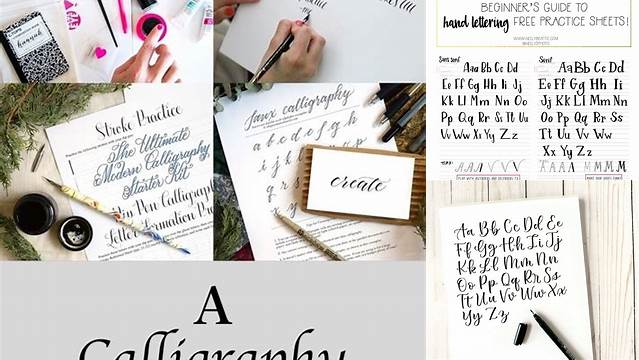
Easy Calligraphy Fonts A-Z: Beginner's Guide
Calligraphy, the art of beautiful writing, might seem daunting at first, but trust me, guys, it's totally achievable, especially with the right approach. This guide is designed to walk you through easy calligraphy fonts from A to Z, perfect for beginners. We'll break down the basics, explore different styles, and give you the confidence to start creating stunning lettering yourself. So, grab your pens, and let's dive in!
1. Calligraphy Basics for Newbies
Before we jump into specific fonts, let's cover the fundamental calligraphy basics you need to know. Calligraphy isn't just about pretty letters; it's about understanding the strokes, pressure, and spacing that make each character unique. The key is mastering the thin upstrokes and thick downstrokes that give calligraphy its signature look. You'll need to practice these basic strokes repeatedly to develop muscle memory and control. Think of it like learning to play an instrument – you wouldn't expect to play a symphony on your first try, right? Start with simple drills, focusing on consistent pressure and smooth transitions. We’ll also touch upon essential tools like calligraphy pens, paper types, and inks, ensuring you have everything you need to get started on the right foot. So, don't be intimidated; everyone starts somewhere, and with a little patience, you'll be amazed at what you can create.
2. Essential Calligraphy Tools for Beginners
To embark on your calligraphy journey, you'll need the right tools. While fancy supplies can be tempting, let’s focus on the essentials for beginners. A good starting point is a brush pen, such as the Tombow Dual Brush Pen or the Pentel Fude Touch Sign Pen. These are relatively inexpensive and provide the variation in line width crucial for calligraphy. Don’t underestimate the importance of paper either! Regular printer paper isn't ideal as it can cause your ink to bleed. Look for smooth paper designed for calligraphy or marker use. Inks are another consideration. India ink is a popular choice for its rich black color and permanence, but there are many other options available, including colored inks and shimmering varieties. Remember, the right tools can make a huge difference in your experience, so invest wisely in quality basics before expanding your collection. It's like having the right ingredients for a delicious meal – you can't bake a cake without flour, right?
3. Mastering Basic Calligraphy Strokes
The foundation of beautiful calligraphy lies in mastering a few basic strokes. These strokes are the building blocks for all the letters, so dedicate time to practicing them. The most crucial are the upstroke, a thin line created by light pressure, and the downstroke, a thick line achieved with more pressure. Other essential strokes include oval shapes, compound curves, and ascending and descending loops. Practicing these repeatedly will help you develop the muscle memory needed for consistent lettering. Think of it like learning scales on a piano – they might seem repetitive, but they're essential for playing more complex pieces. You can find numerous stroke practice sheets online or create your own by breaking down letters into their component strokes. Remember, consistency is key, so focus on achieving even lines and smooth transitions. Trust me, guys, the time you invest in these basics will pay off big time when you start writing full words and phrases.
4. Understanding Calligraphy Letter Forms
Once you've got the basic strokes down, it's time to understand calligraphy letter forms. Each letter in a calligraphy alphabet is constructed from those basic strokes, but the specific combination and proportions create its unique shape. Spend time studying exemplars, which are visual examples of the alphabet in different calligraphy styles. Pay close attention to the spacing between letters and the overall consistency of the letterforms. Ascenders (the parts of letters that extend above the x-height, like in “b” or “h”) and descenders (the parts that extend below the baseline, like in “g” or “p”) are crucial elements that contribute to the visual appeal of calligraphy. Understanding how these elements work together will help you create balanced and harmonious lettering. Think of each letter as a tiny work of art, and the more you study its form, the better you'll be at recreating it. It's like learning a new dance – you need to understand the steps before you can move gracefully.
5. Easy Calligraphy Alphabet: A to Z for Beginners
Now, let's dive into the easy calligraphy alphabet from A to Z! We'll focus on a simple, beginner-friendly style that emphasizes readability and elegance. For each letter, we’ll break down the strokes needed and provide visual examples. Start by practicing each letter individually, paying attention to the pressure you apply and the spacing between strokes. Don't rush the process; take your time and focus on accuracy. Once you're comfortable with individual letters, try connecting them to form simple words. Remember, consistency is key, so strive for uniformity in your letter heights, widths, and spacing. Think of it like building with LEGOs – each letter is a brick, and you need to connect them securely to create a stable structure. We’ll also provide tips on common mistakes and how to avoid them, ensuring you develop good habits from the start.
6. Simple Calligraphy Fonts to Learn First
When starting your calligraphy journey, choosing the right font can make a big difference. Some fonts are more complex and require advanced skills, while others are simple calligraphy fonts that are perfect for beginners. A great starting point is a basic monoline script, where the line width remains consistent throughout the letter. This simplifies the process and allows you to focus on letterforms and spacing without worrying about pressure variations. Another excellent option is a faux calligraphy style, where you draw the thick downstrokes instead of creating them with pressure. This is a fantastic way to get a feel for calligraphy without needing specialized tools. We’ll introduce you to a few specific fonts that are known for their simplicity and elegance, making them ideal for beginners. Think of it like learning a new language – you'd start with basic vocabulary and grammar before tackling complex sentences, right?
7. Brush Pen Calligraphy for Beginners
Brush pen calligraphy is a popular choice for beginners due to the versatility and ease of use of brush pens. These pens have flexible tips that allow you to create thick and thin lines with varying pressure. This makes them perfect for achieving the signature calligraphy look without the need for a traditional pointed pen and ink. When using brush pens, it’s crucial to hold the pen at a consistent angle and apply even pressure. Start with light pressure for upstrokes and gradually increase the pressure for downstrokes. Practice transitioning smoothly between thick and thin lines to create elegant letterforms. We'll provide tips on choosing the right brush pen, holding it correctly, and practicing specific exercises to improve your technique. Think of a brush pen as your magic wand – with a little practice, you can create stunning calligraphy with it!
8. Faux Calligraphy: A Beginner-Friendly Alternative
If you're intimidated by the pressure control required for traditional calligraphy, faux calligraphy is your new best friend. This technique involves writing out the letters in a regular font and then going back and thickening the downstrokes manually. It's a fantastic way to get the look of calligraphy without needing specialized tools or advanced skills. To create faux calligraphy, simply write out your word or phrase in a basic print style. Then, identify the downstrokes in each letter and add a second line parallel to the original, creating a thicker line. You can then fill in the space between the lines for a bolder look. We’ll provide step-by-step instructions and visual examples to guide you through the process. Think of it like drawing a picture – you start with an outline and then add details and shading. Faux calligraphy is a fantastic way to practice letterforms and spacing before moving on to traditional calligraphy techniques.
9. Practicing Letter Connections in Calligraphy
Connecting letters smoothly is a key aspect of beautiful calligraphy. It’s not enough to just write each letter correctly; you need to ensure that they flow seamlessly into one another. This involves paying attention to the exit strokes of one letter and the entry strokes of the next. Practice connecting letters in pairs and small words to develop a feel for the rhythm and spacing. Some letters connect more easily than others, so identify the challenging combinations and focus your practice on those. Overlapping letters slightly can also create a more natural and flowing look. We’ll provide exercises and examples to help you master letter connections and create elegant calligraphy pieces. Think of it like handwriting – you naturally connect letters when you write quickly, and calligraphy is all about creating that same fluidity with intention.
10. Spacing and Alignment in Calligraphy
Spacing and alignment are crucial elements that contribute to the overall visual appeal of your calligraphy. Even if your letterforms are perfect, inconsistent spacing or misalignment can make your work look messy and unbalanced. Pay close attention to the space between letters, words, and lines. The goal is to create a harmonious balance where the spacing feels even and consistent. Use guidelines to ensure that your letters are aligned correctly and that your baseline is straight. Practice writing on grid paper or use a ruler to draw guidelines on your paper. We’ll provide tips on identifying and correcting spacing issues, as well as techniques for creating visually pleasing layouts. Think of it like interior design – you need to arrange the furniture in a room thoughtfully to create a balanced and harmonious space, and calligraphy is no different.
11. Calligraphy Drills for Skill Improvement
Consistent practice is the key to improving your calligraphy skills, and calligraphy drills are a fantastic way to build muscle memory and refine your technique. These drills focus on repetitive strokes and letterforms, helping you develop consistency and control. Start with basic stroke drills, such as upstrokes, downstrokes, and ovals. Then, move on to practicing individual letters and letter combinations. Aim to spend at least 15-20 minutes each day on drills to see noticeable improvement. We’ll provide a variety of drill exercises to keep your practice engaging and effective. Think of it like a workout routine – you need to consistently exercise specific muscles to build strength and endurance, and calligraphy drills are the equivalent for your hand and wrist.
12. Common Calligraphy Mistakes and How to Avoid Them
Everyone makes mistakes when learning calligraphy, but identifying and correcting them is crucial for improvement. Some common calligraphy mistakes include inconsistent pressure, uneven spacing, misalignment, and incorrect letterforms. One of the best ways to identify mistakes is to analyze your work critically and compare it to exemplars. Pay attention to the areas where your lettering deviates from the ideal form and focus your practice on correcting those issues. Using guidelines and taking breaks when your hand gets tired can also help prevent mistakes. We’ll provide a detailed list of common mistakes and practical tips on how to avoid them. Think of it like learning a new skill – you’ll stumble along the way, but the key is to learn from your mistakes and keep practicing.
13. Calligraphy Projects for Beginners to Try
Putting your calligraphy skills to use on calligraphy projects is a great way to stay motivated and see your progress. Start with simple projects, such as writing quotes, creating greeting cards, or addressing envelopes. These projects allow you to practice your letterforms and spacing in a practical context. As you become more confident, you can move on to more complex projects, such as creating custom artwork or designing invitations. We’ll provide a range of project ideas and tips on how to execute them successfully. Think of it like cooking – you start with simple recipes and gradually work your way up to more elaborate dishes, and calligraphy projects are the perfect way to hone your skills and create something beautiful.
14. Adding Flourishes to Your Calligraphy
Flourishes are decorative strokes that add elegance and personality to your calligraphy. They can be added to the ascenders, descenders, or anywhere else in your lettering. However, it’s essential to use flourishes sparingly and thoughtfully, as too many can make your work look cluttered. Start with simple flourishes, such as loops and curves, and gradually experiment with more complex designs. Practice your flourishes separately from your letterforms to develop control and consistency. We’ll provide tips on creating balanced and visually appealing flourishes, as well as examples of different flourish styles. Think of it like adding jewelry to an outfit – the right flourishes can enhance your calligraphy, but too many can be overwhelming.
15. Exploring Different Calligraphy Styles
Calligraphy encompasses a wide range of styles, each with its unique characteristics and aesthetic. From elegant copperplate to modern brush lettering, there’s a style to suit every taste. As a beginner, it’s helpful to explore different styles to find the ones that resonate with you. Start by studying exemplars of various styles and practicing the basic letterforms. Experiment with different tools and techniques to see how they influence the final result. We’ll introduce you to a few popular calligraphy styles and provide resources for further exploration. Think of it like exploring different genres of music – you might start with pop, but you might discover a love for jazz or classical along the way, and the same goes for calligraphy styles.
16. Modern Calligraphy Techniques
Modern calligraphy is a more relaxed and contemporary approach to traditional calligraphy. It allows for greater freedom and creativity in letterforms and spacing. Modern calligraphy often incorporates elements from different styles, creating a unique and personalized look. One popular technique is bounce lettering, where the letters appear to bounce above and below the baseline. Another technique is adding variations in line thickness and pressure for a more dynamic effect. We’ll provide tips on incorporating modern techniques into your calligraphy and creating your own unique style. Think of it like fashion – modern trends often reinterpret classic styles, and modern calligraphy does the same for traditional lettering.
17. Calligraphy for Special Occasions
Calligraphy adds a touch of elegance and personalization to special occasions. From wedding invitations to birthday cards, calligraphy can elevate any event. When creating calligraphy for special occasions, consider the tone and style of the event. For formal occasions, a traditional script like copperplate may be appropriate, while for more casual events, a modern brush lettering style might be a better fit. Pay attention to the colors and materials you use to create a cohesive look. We’ll provide tips on designing calligraphy for different occasions and creating memorable pieces. Think of it like decorating for a party – you choose the decorations to create the right atmosphere, and calligraphy can do the same for your special event.
18. Calligraphy as a Hobby and Stress Reliever
Calligraphy is not only a beautiful art form but also a fantastic hobby and stress reliever. The focused concentration required for calligraphy can be a form of meditation, helping you to relax and unwind. The process of creating beautiful lettering can be incredibly satisfying, boosting your confidence and creativity. Setting aside time each day for calligraphy practice can be a great way to de-stress and improve your overall well-being. We’ll discuss the benefits of calligraphy as a hobby and provide tips on incorporating it into your daily routine. Think of it like yoga or meditation – it’s a practice that benefits both your mind and your body.
19. Where to Find Calligraphy Inspiration
Finding calligraphy inspiration is crucial for staying motivated and developing your own style. There are countless resources available, both online and offline. Social media platforms like Instagram and Pinterest are excellent sources of visual inspiration, where you can follow calligraphers and browse their work. Books, magazines, and calligraphy workshops are also great resources for learning new techniques and styles. Don’t be afraid to experiment and draw inspiration from a variety of sources. We’ll provide a list of resources and tips on finding inspiration that resonates with you. Think of it like exploring different art galleries – you might discover a new artist or style that inspires your own work, and the same goes for calligraphy.
20. Building a Calligraphy Community
Connecting with other calligraphers can enhance your learning experience and provide valuable support and encouragement. Joining a calligraphy community allows you to share your work, receive feedback, and learn from others. Online forums, social media groups, and local calligraphy guilds are all great ways to connect with fellow enthusiasts. Participating in challenges and collaborations can also be a fun way to improve your skills and build relationships. We’ll provide tips on finding and engaging with calligraphy communities. Think of it like joining a club or team – you share a common interest, support each other, and learn together.
21. The Importance of Patience in Calligraphy
Patience is a virtue, especially when it comes to learning calligraphy. It takes time and consistent practice to develop the skills and muscle memory needed for beautiful lettering. Don’t get discouraged if your first attempts aren’t perfect; everyone starts somewhere. Focus on the process and celebrate your progress, no matter how small. Set realistic goals and break down your learning into manageable steps. Remember, the journey is just as important as the destination. We’ll discuss the importance of patience in calligraphy and provide tips on staying motivated and persistent. Think of it like growing a garden – you need to nurture the plants and give them time to flourish, and the same goes for your calligraphy skills.
22. Calligraphy Paper Types for Different Inks
Choosing the right paper is essential for achieving optimal results in calligraphy. Different inks and pens perform best on specific paper types. Smooth paper is generally preferred for calligraphy as it allows the pen to glide easily without feathering or bleeding. Papers specifically designed for calligraphy or marker use are ideal, as they are often thicker and coated to prevent ink from spreading. For pointed pen calligraphy, smooth, non-absorbent paper is crucial, while brush pens may work well on slightly textured paper. We’ll provide a guide to different calligraphy paper types and their ideal uses. Think of it like choosing the right canvas for a painting – the paper is the foundation for your artwork, and selecting the right one can make a big difference in the final result.
23. Choosing the Right Calligraphy Ink
Choosing the right calligraphy ink is crucial for achieving the desired effect in your lettering. Different inks have different properties, such as viscosity, opacity, and permanence. India ink is a popular choice for its rich black color and archival qualities, making it suitable for important projects. Watercolor inks offer a wide range of colors and can be blended to create unique shades. Acrylic inks are waterproof and durable, making them ideal for projects that need to withstand the elements. Experimenting with different inks can help you discover your preferences and find the perfect ink for each project. We’ll provide a guide to different calligraphy inks and their characteristics. Think of it like choosing the right paint for a project – the ink is the color and substance of your calligraphy, and selecting the right one can enhance your work.
24. Calligraphy Pen Maintenance and Care
Proper calligraphy pen maintenance is essential for ensuring your tools last and perform optimally. Clean your pens regularly to prevent ink buildup, which can affect the flow and quality of your lettering. Different types of pens require different cleaning methods. Brush pens can be cleaned by gently wiping the tip with a damp cloth, while pointed pens may need to be disassembled and cleaned with water or pen cleaner. Store your pens properly to protect the tips and prevent them from drying out. We’ll provide a guide to calligraphy pen maintenance and care, ensuring your tools remain in top condition. Think of it like caring for your car – regular maintenance can extend its lifespan and keep it running smoothly, and the same goes for your calligraphy pens.
25. Calligraphy Nib Types and Their Uses
Calligraphy nibs come in a variety of shapes and sizes, each designed for specific purposes. Pointed nibs are ideal for creating the thick and thin lines characteristic of traditional calligraphy styles like copperplate and Spencerian. Broad-edged nibs are used for styles like Gothic and Italic, which feature consistent line widths. Flex nibs offer a greater range of line variation and are popular for modern calligraphy. Understanding the different calligraphy nib types and their uses can help you choose the right nib for your desired style and achieve optimal results. We’ll provide a guide to calligraphy nib types and their applications. Think of it like choosing the right brush for painting – each brush is designed for specific techniques and effects, and the same goes for calligraphy nibs.
26. Digital Calligraphy: A Modern Twist
Digital calligraphy offers a modern twist on the traditional art form, allowing you to create beautiful lettering using digital tools. Tablets like iPads and styluses like the Apple Pencil provide a versatile platform for digital calligraphy. Apps like Procreate and Adobe Fresco offer a range of brushes and tools that mimic the look and feel of traditional calligraphy pens. Digital calligraphy allows for greater flexibility and experimentation, as you can easily undo mistakes and try different styles. It also opens up opportunities for incorporating calligraphy into digital designs and projects. We’ll provide a guide to digital calligraphy and its advantages. Think of it like photography – digital cameras have revolutionized the way we capture images, and digital calligraphy is doing the same for lettering.
27. Combining Calligraphy with Other Art Forms
Calligraphy can be beautifully combined with other art forms to create unique and expressive pieces. Watercolor painting, illustration, and even embroidery can enhance your calligraphy and add depth and visual interest to your work. Experiment with layering calligraphy over watercolor washes, adding hand-drawn illustrations to your lettering, or stitching calligraphy designs onto fabric. The possibilities are endless, and combining calligraphy with other art forms can lead to exciting new creative avenues. We’ll provide tips on combining calligraphy with other art forms and creating visually stunning pieces. Think of it like cooking – combining different ingredients and flavors can create delicious new dishes, and the same goes for art forms.
28. Calligraphy Workshops and Online Courses
Attending a calligraphy workshop or taking an online course can be a fantastic way to learn new techniques and improve your skills. Workshops offer hands-on instruction from experienced calligraphers, providing valuable feedback and guidance. Online courses offer a more flexible learning option, allowing you to study at your own pace and on your own schedule. Both workshops and online courses can provide structured learning and help you advance your calligraphy journey. We’ll provide a list of resources for finding calligraphy workshops and online courses. Think of it like going to school – structured learning can provide a solid foundation and help you progress more quickly.
29. Selling Your Calligraphy Work
If you’ve developed your calligraphy skills and are looking for ways to monetize your passion, there are several avenues you can explore. Selling your calligraphy work online through platforms like Etsy or your own website is a popular option. Creating custom calligraphy pieces for clients, such as wedding invitations or personalized artwork, can be a rewarding and profitable venture. Teaching calligraphy workshops or creating online courses can also generate income while sharing your knowledge and passion with others. We’ll provide tips on selling your calligraphy work and building a successful business. Think of it like turning a hobby into a career – with dedication and effort, you can share your talent with the world and get paid for it.
30. Continuing Your Calligraphy Education
Learning calligraphy is a lifelong journey, and there’s always something new to discover. Continuing your calligraphy education through practice, experimentation, and exploration is essential for growth and development. Set new goals for yourself, explore different styles and techniques, and challenge yourself to create increasingly complex pieces. Stay connected with the calligraphy community, attend workshops and conferences, and continue to seek inspiration from a variety of sources. The more you learn and practice, the more rewarding your calligraphy journey will become. Think of it like any skill – continuous learning and improvement are key to mastery, and the same goes for calligraphy. So, keep practicing, guys, and enjoy the process! You've got this!